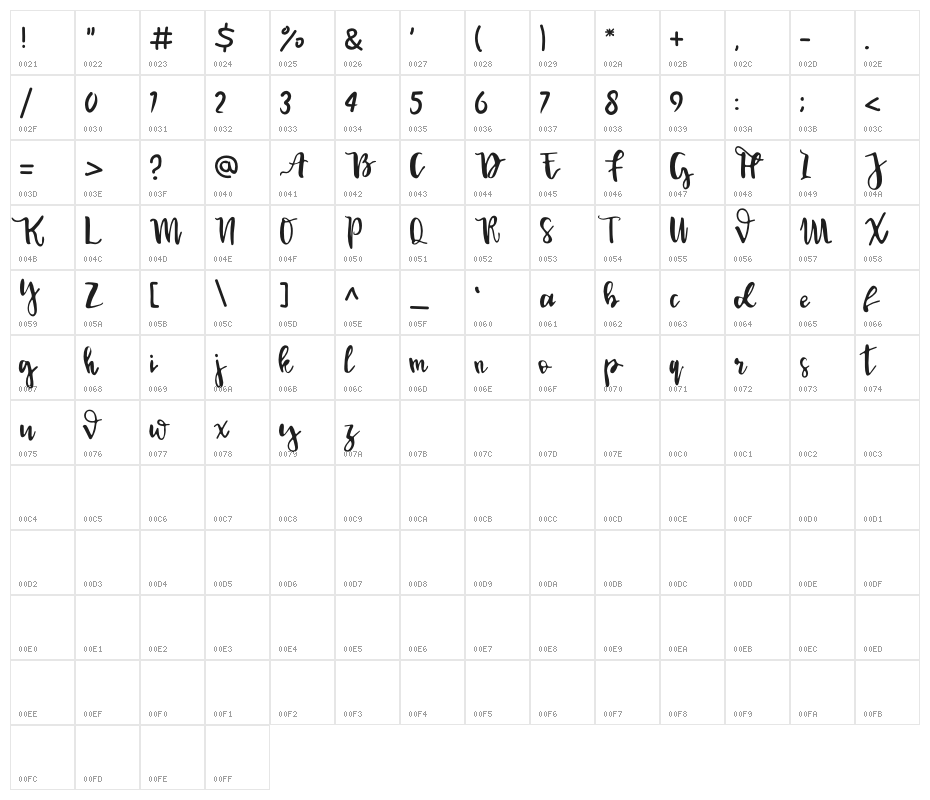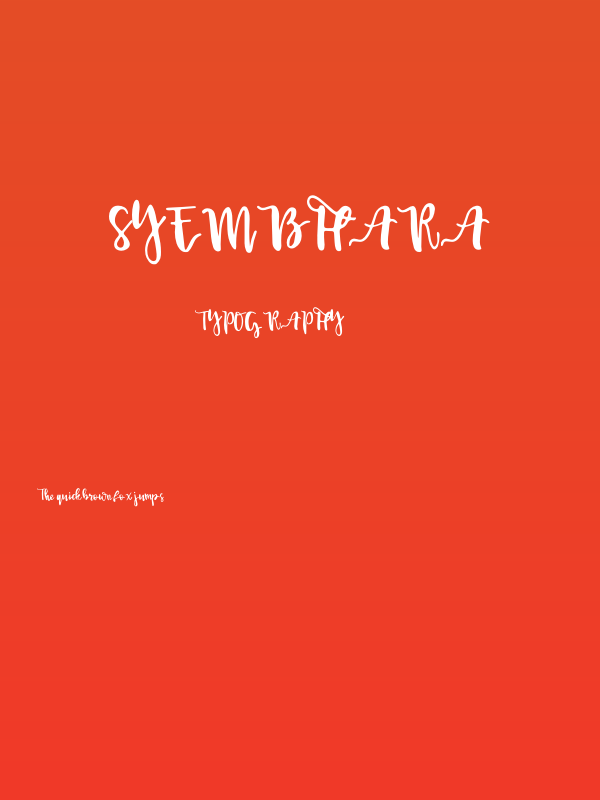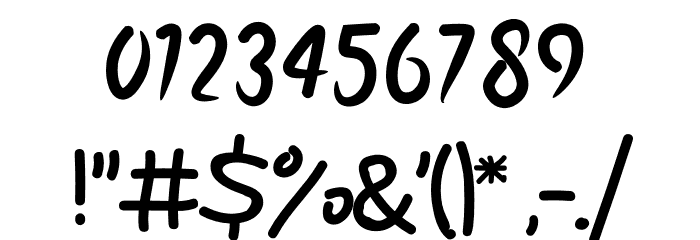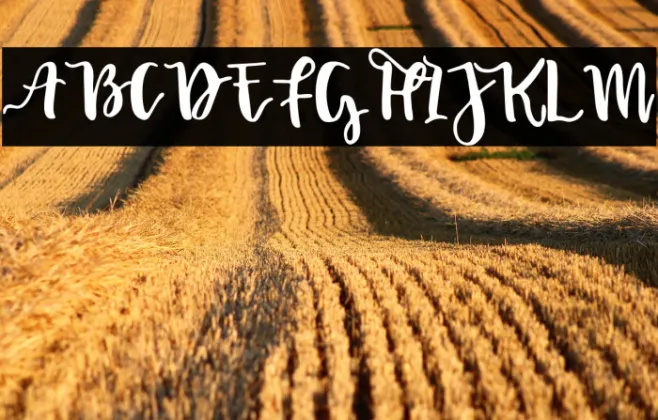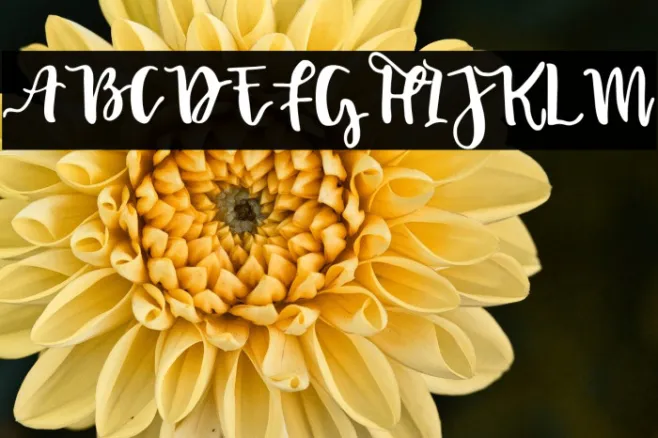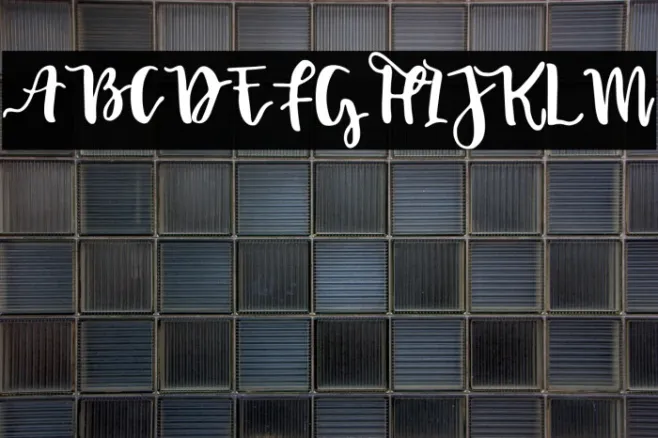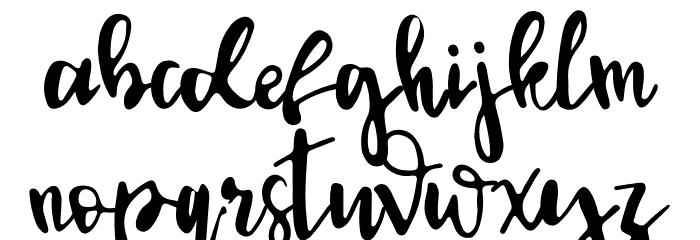
Syembhara Font
Syembhara Description
This font features a lively and expressive handwritten style, characterized by its fluid and dynamic strokes. The letters have a playful and artistic flair, with varying thickness that adds a sense of movement and energy. The uppercase letters are bold and prominent, while the lowercase letters maintain a consistent flow, creating a harmonious balance. The numbers and special characters are crafted with the same attention to detail, ensuring a cohesive look across all elements. This font's unique style makes it ideal for creative projects that require a personal touch.